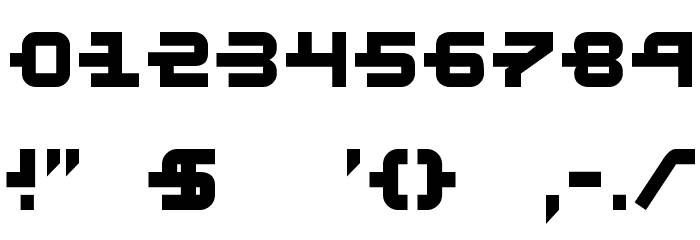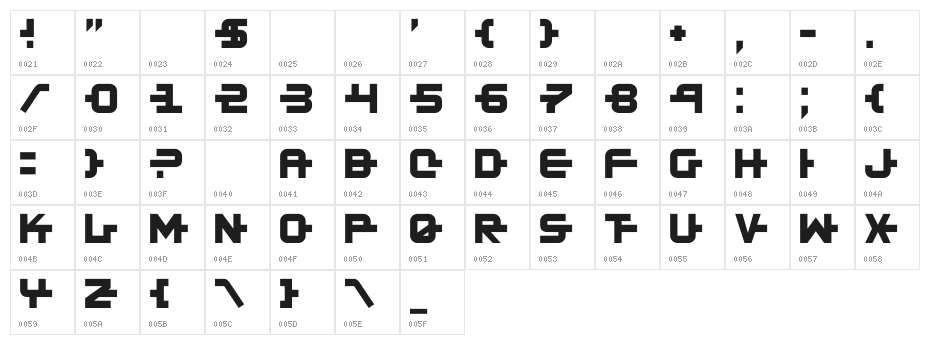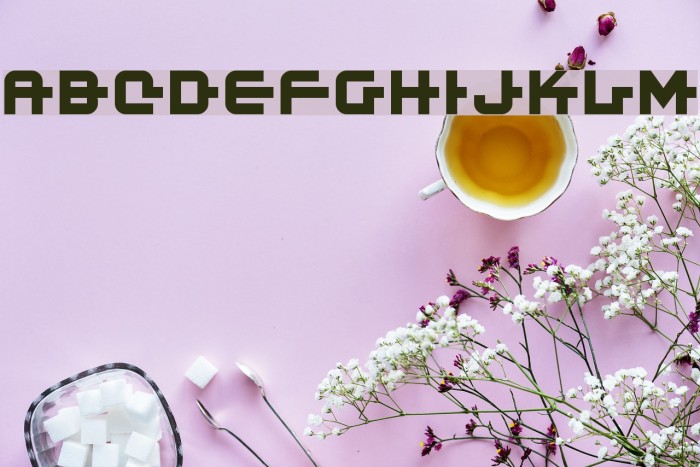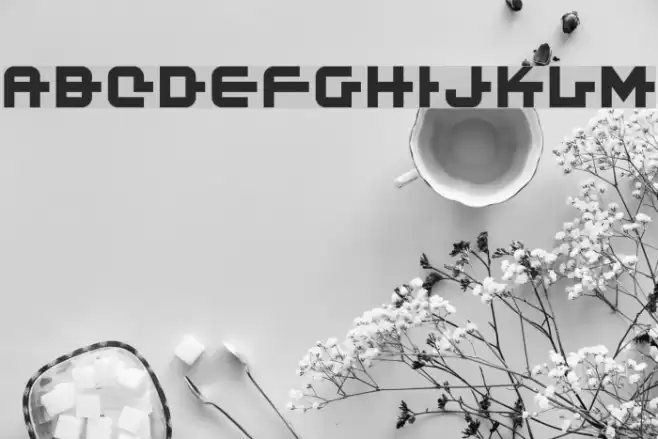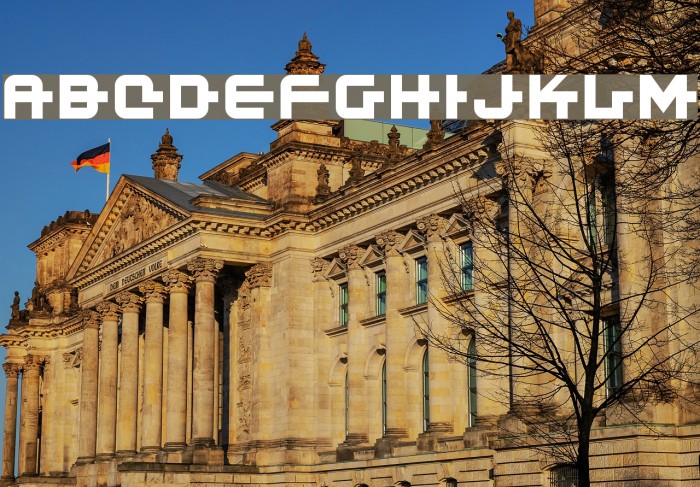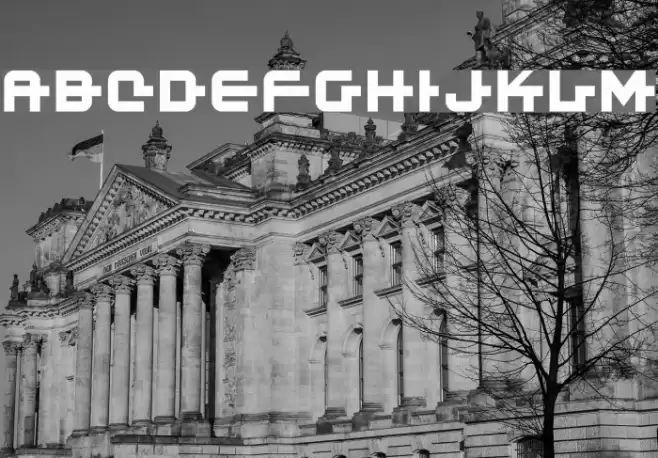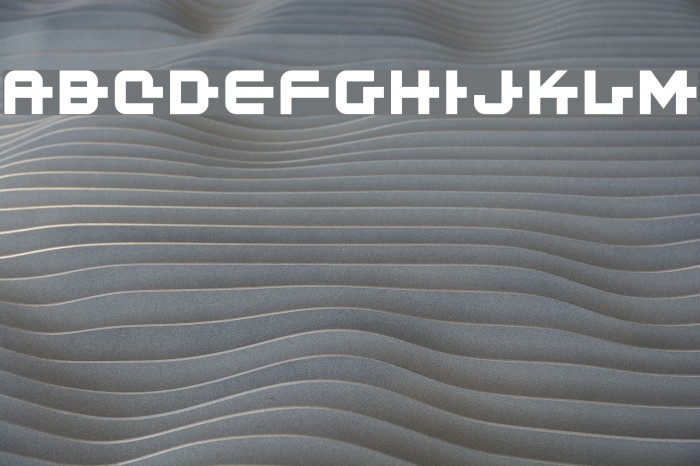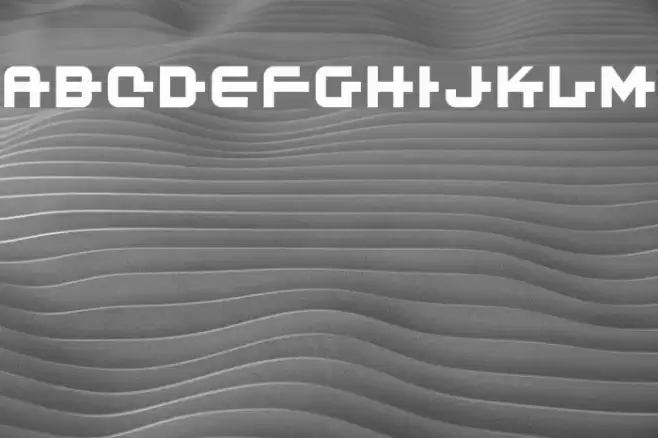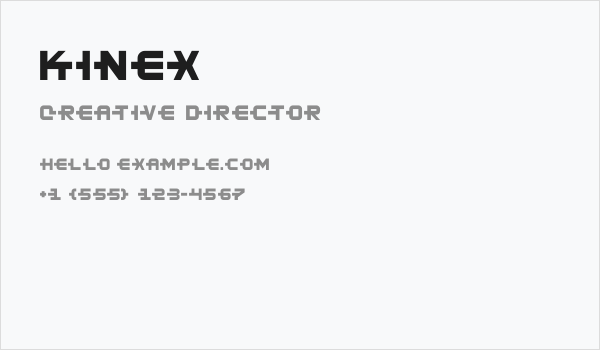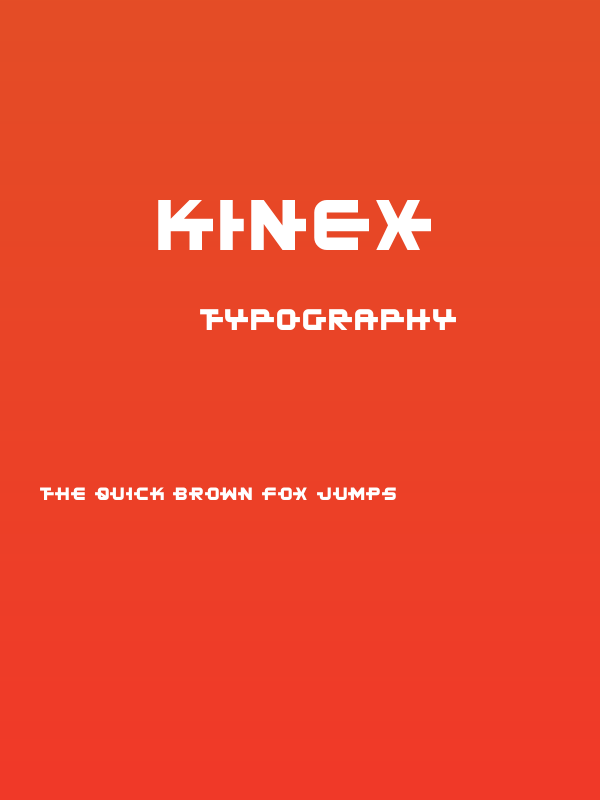
Kinex Font
Kinex Description
This font features a bold, geometric design with a futuristic and industrial feel. The characters are constructed with thick, uniform strokes and angular shapes, giving it a strong and assertive presence. The uppercase and lowercase letters maintain a consistent style, with some characters incorporating unique cuts and angles that add to its distinctiveness. The numerals and special characters follow the same design principles, ensuring a cohesive look across all glyphs. This font's boldness and geometric nature make it ideal for projects that require a modern and impactful aesthetic.
| Proposed Projects | Ideal for technology branding, sci-fi movie posters, video game titles, and modern logos. |